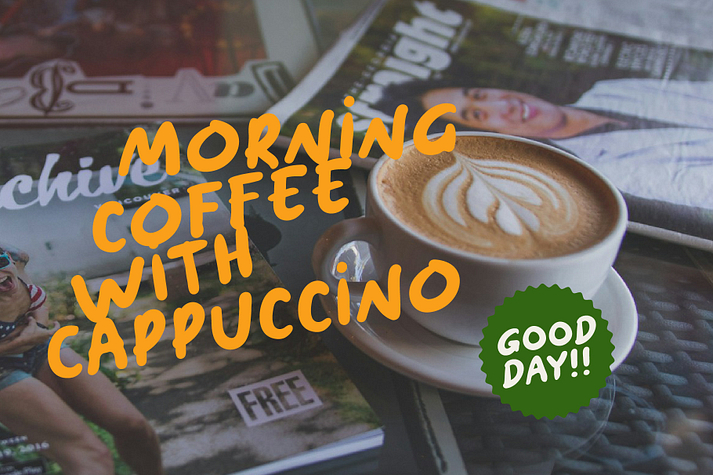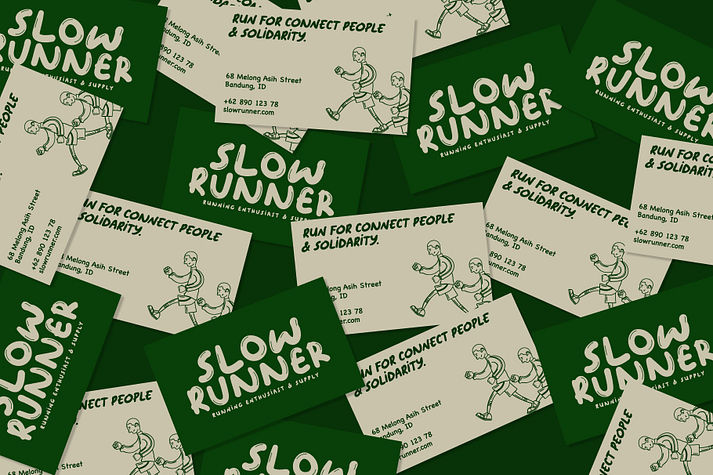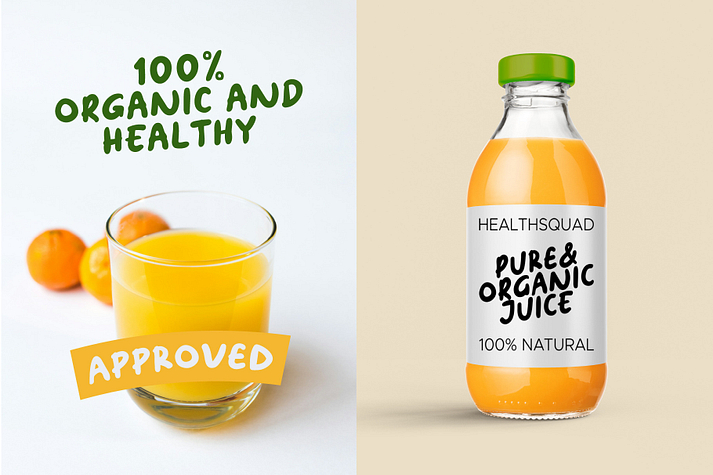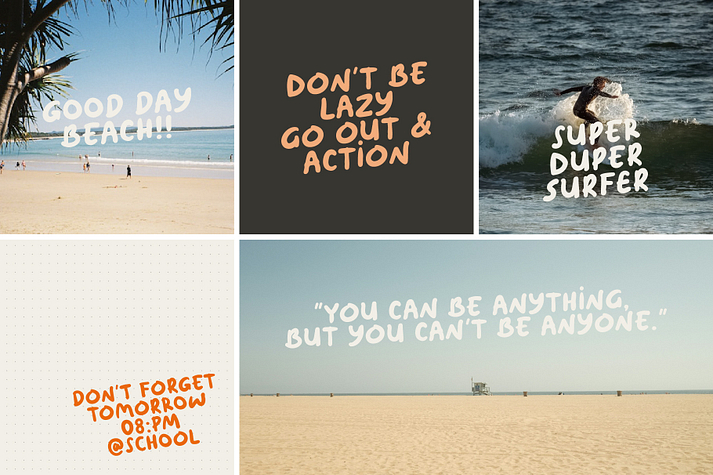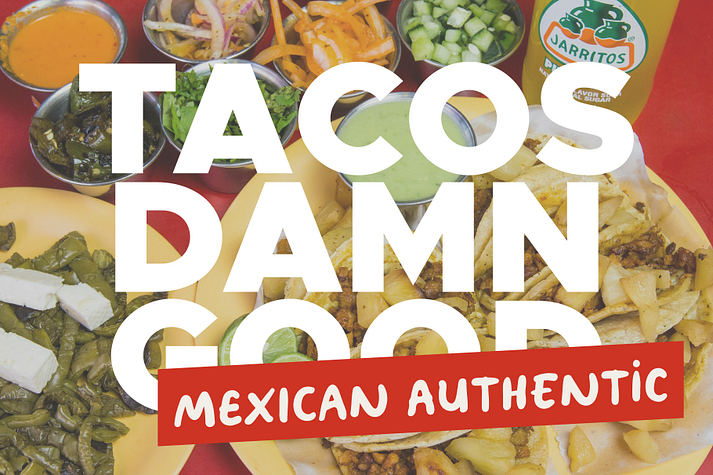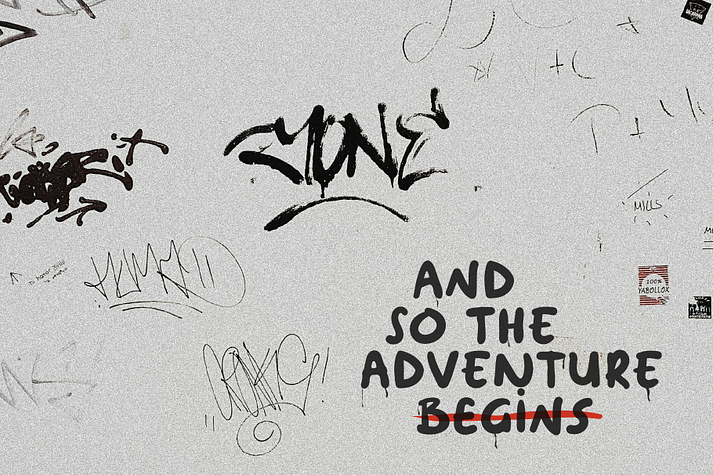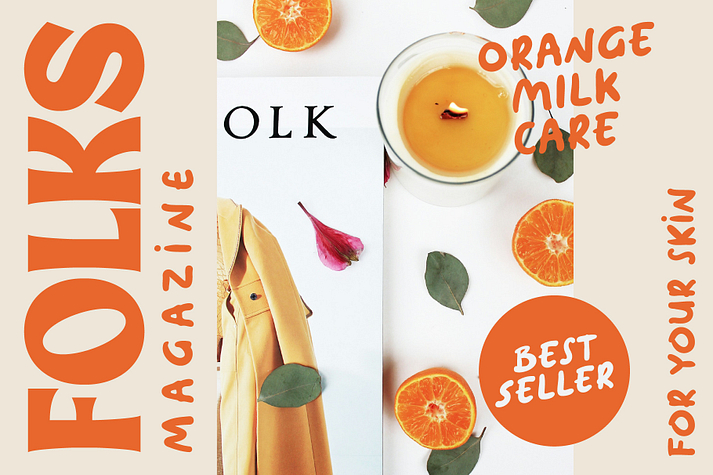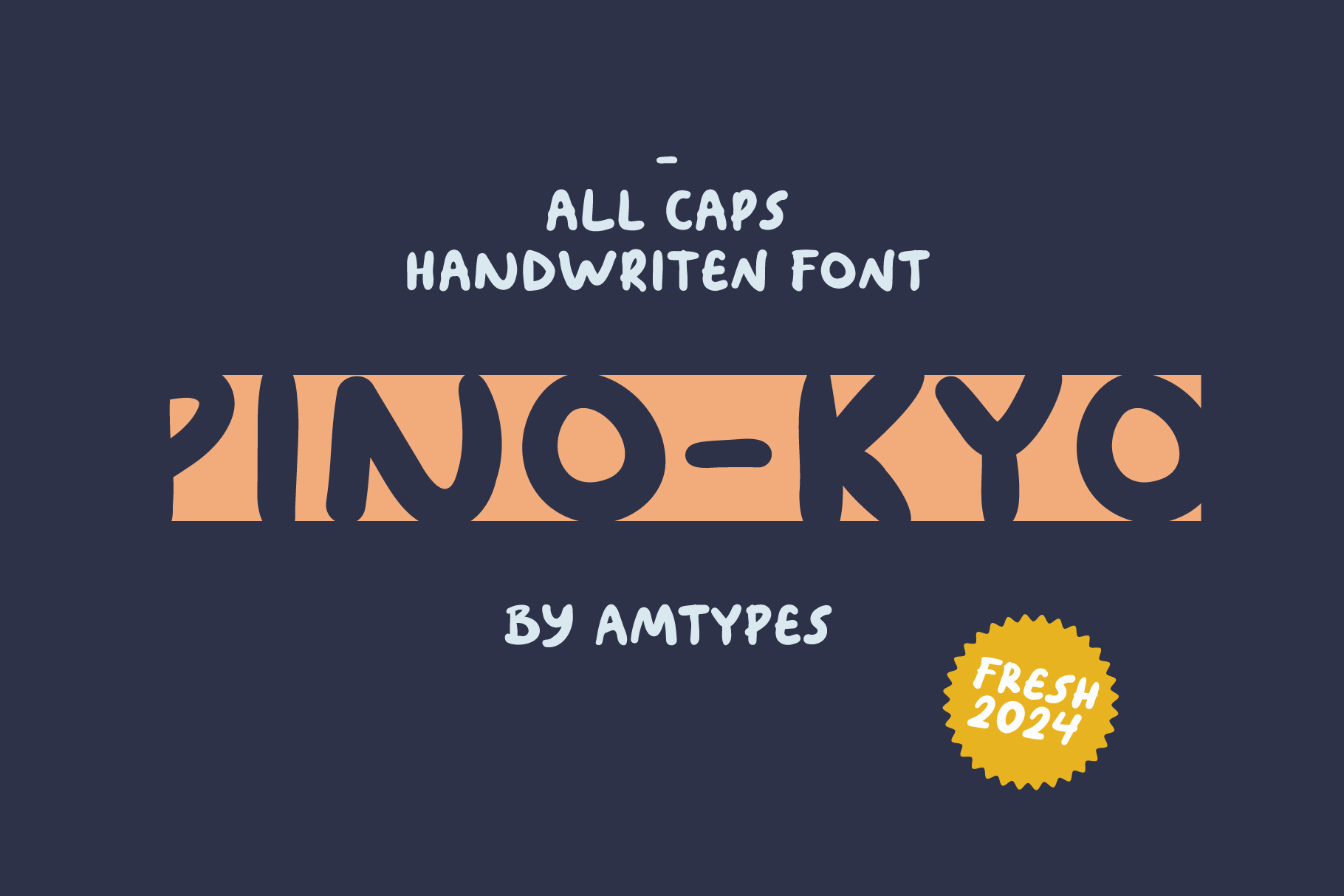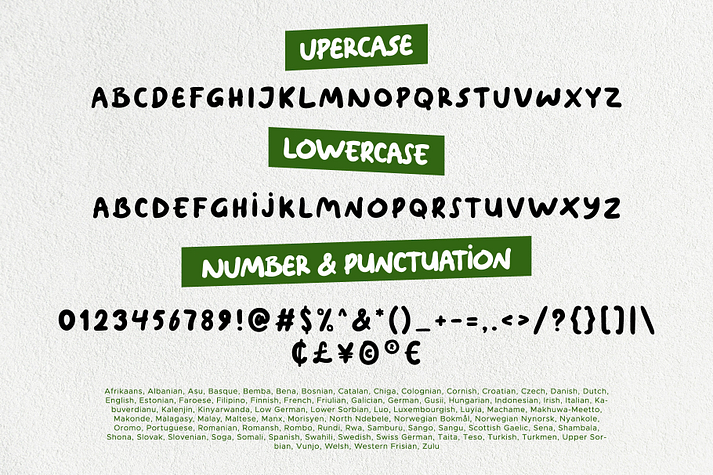
Pino Kyo
Pino Kyo is a brush display font family published by Angga Mahardika.
Pinokyo is a playful and charming sans serif handwriting font that is perfect for creating a warm and inviting atmosphere. With its thick strokes and rounded edges, Pinokyo is reminiscent of children’s handwriting, making it a great choice for projects that target a younger audience.
This font is also highly versatile and can be used for a variety of purposes, such as headings, body text, and even logos. Whether you’re creating a children’s book, designing a greeting card, or crafting a social media post, Pinokyo is sure to add a touch of personality and charm to your work.
Multi Language Support: Afrikaans, Albanian, Asu, Basque, Bemba, Bena, Chiga, Cornish, Danish, English, Faroese, Filipino, Friulian, Galician, German, Gusii, Indonesian, Irish, Italian, Kabuverdianu, Kalenjin, Kinyarwanda, Low German, Luo, Luxembourgish, Luyia, Machame, Makhuwa-Meetto, Makonde, Malagasy, Malay, Manx, Morisyen, North Ndebele, Norwegian Bokmål, Norwegian Nynorsk, Nyankole, Oromo, Portuguese, Romansh, Rombo, Rundi, Rwa, Samburu, Sango, Sangu, Scottish Gaelic, Sena, Shambala, Shona, Soga, Somali, Spanish, Swahili, Swedish, Swiss German, Taita, Teso, Vunjo, Zulu